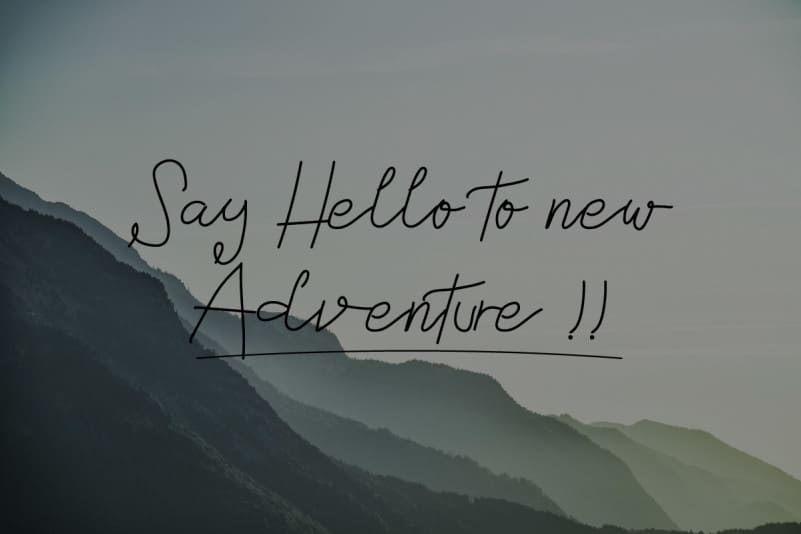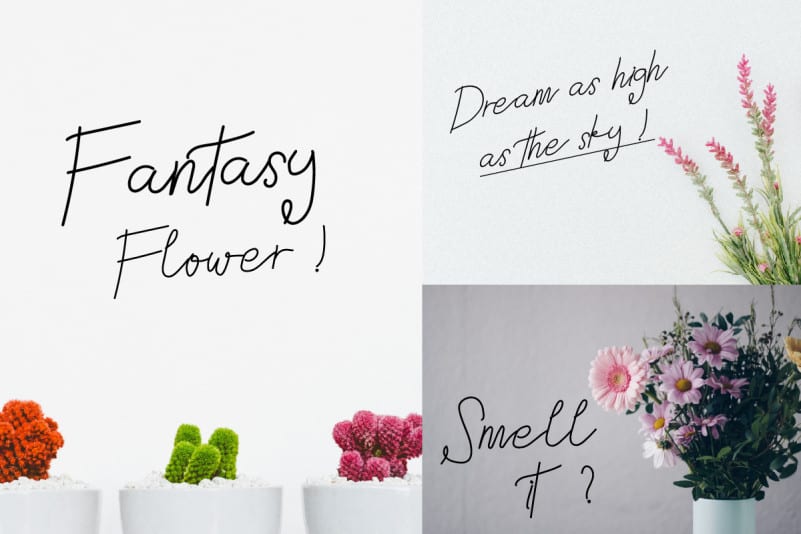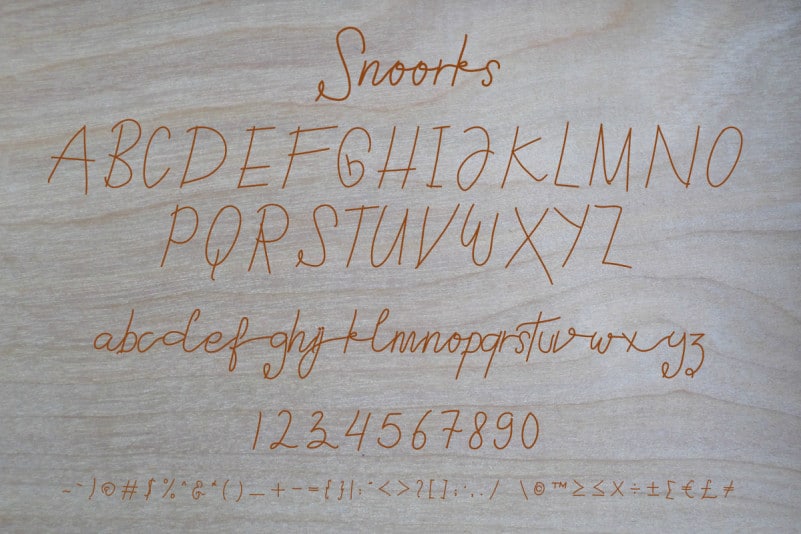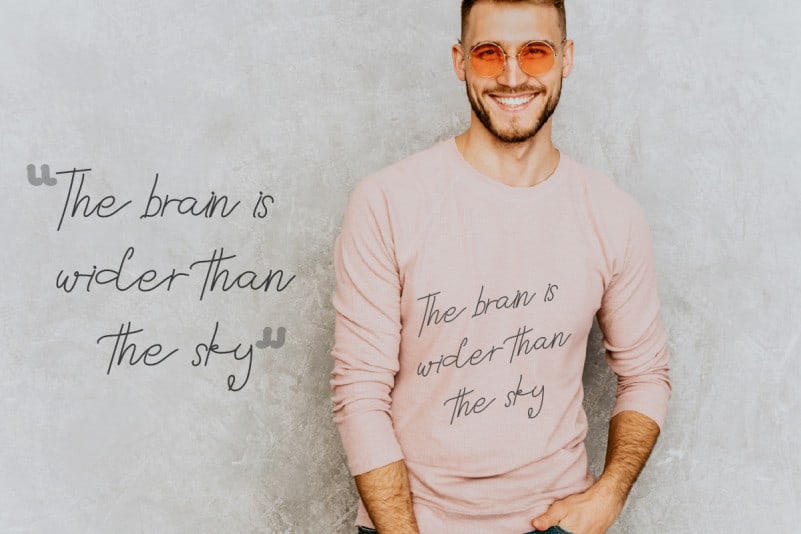
Hello, Snoorks Handwriting Font! This is a new modern script handwriting feminine signature style typeface. It has a fresh, elegant, natural and stylish glyph. Will be perfect for any handwritten project or comic or branding. Snoorks Handwriting Font is a sophisticated styling typeface which will be great for branding, logo, photography , signature, watermark etc. It is so elegant, classy, strong and beautiful.